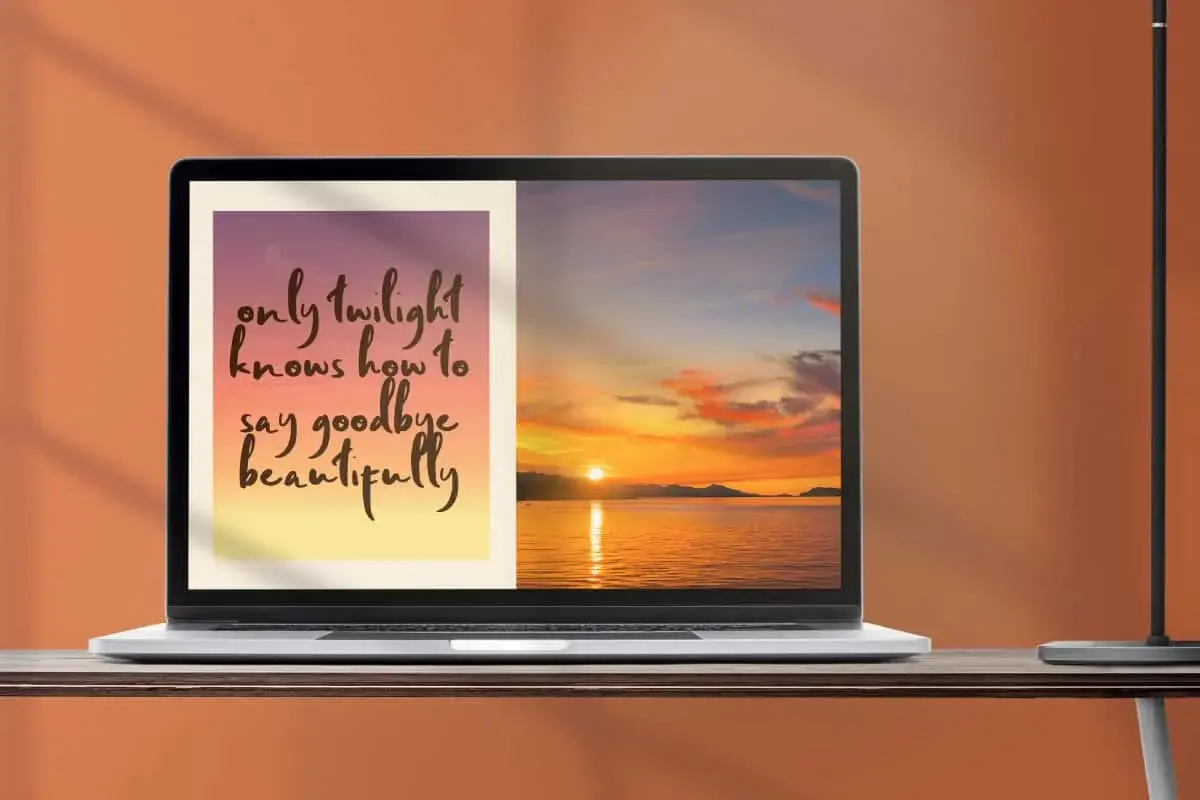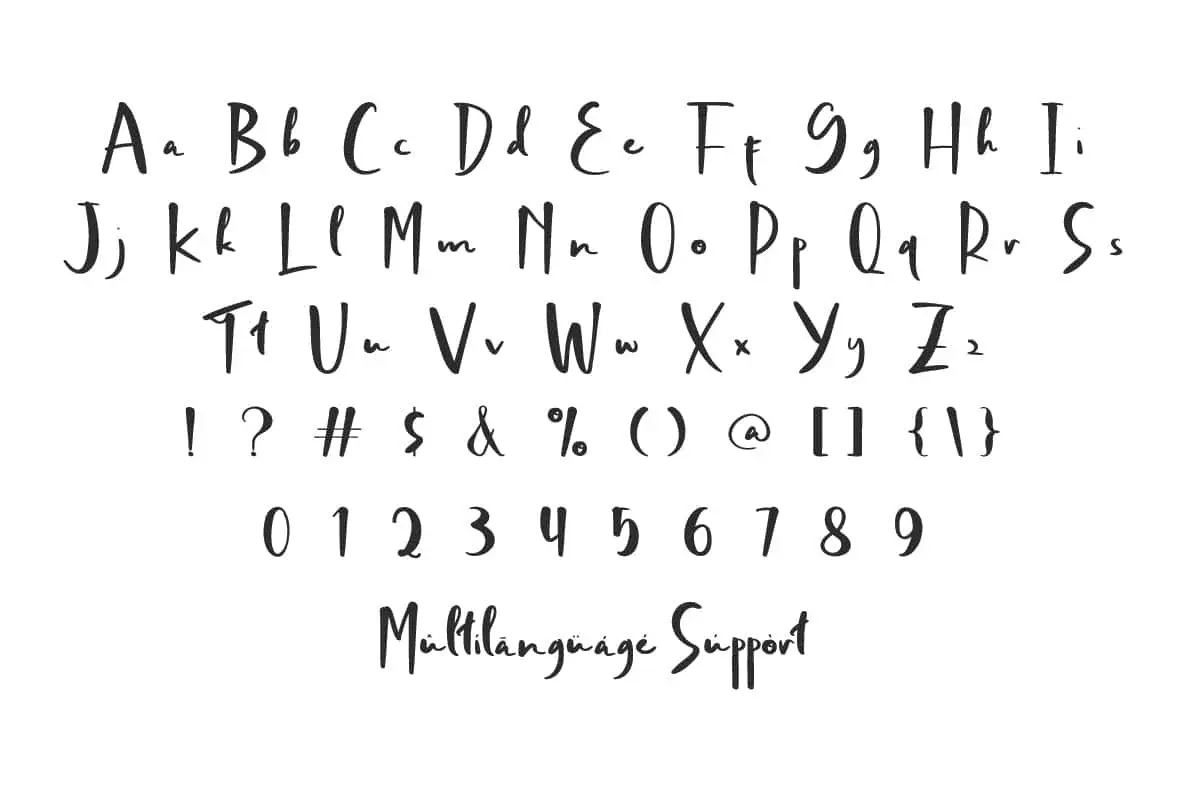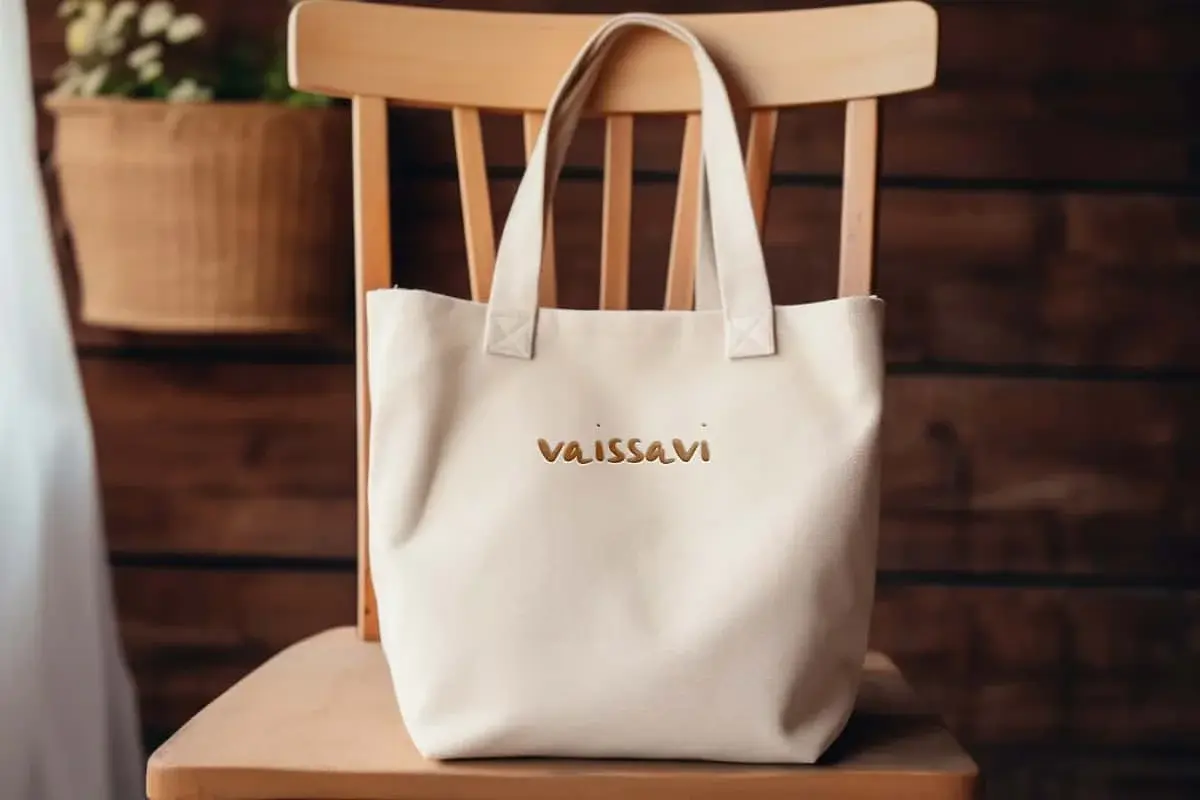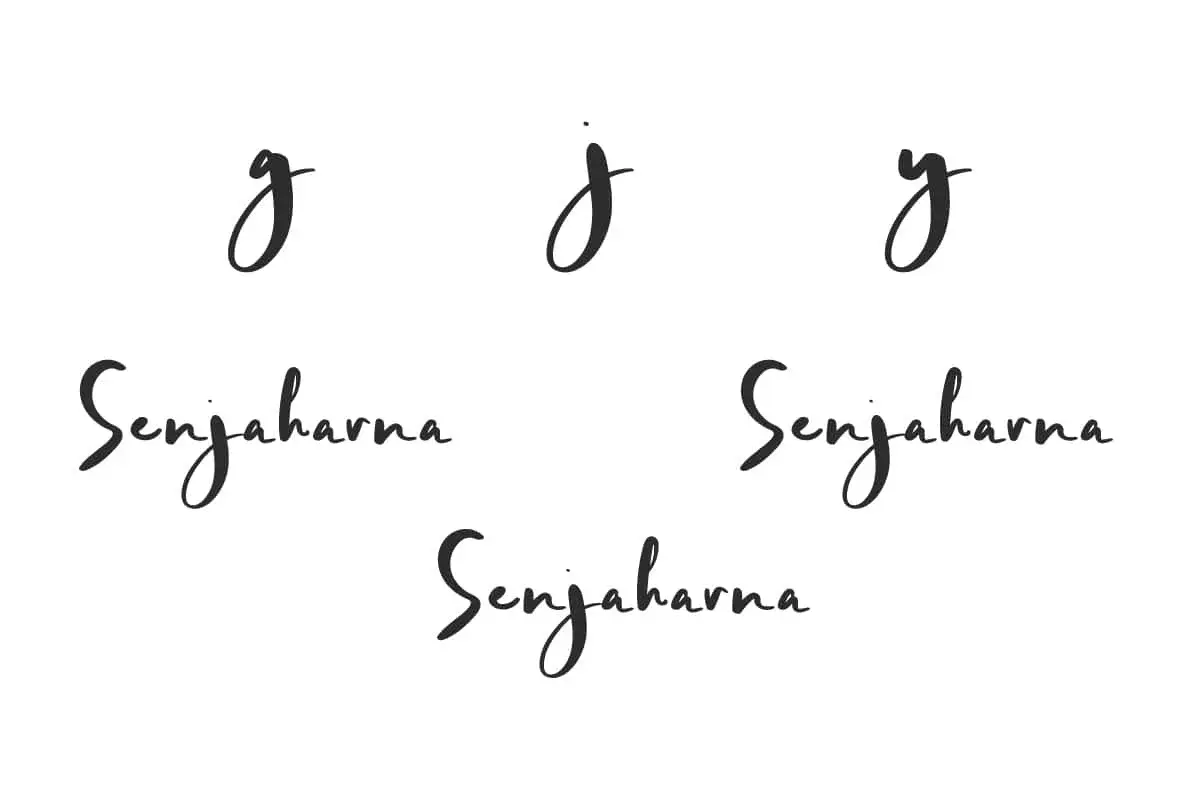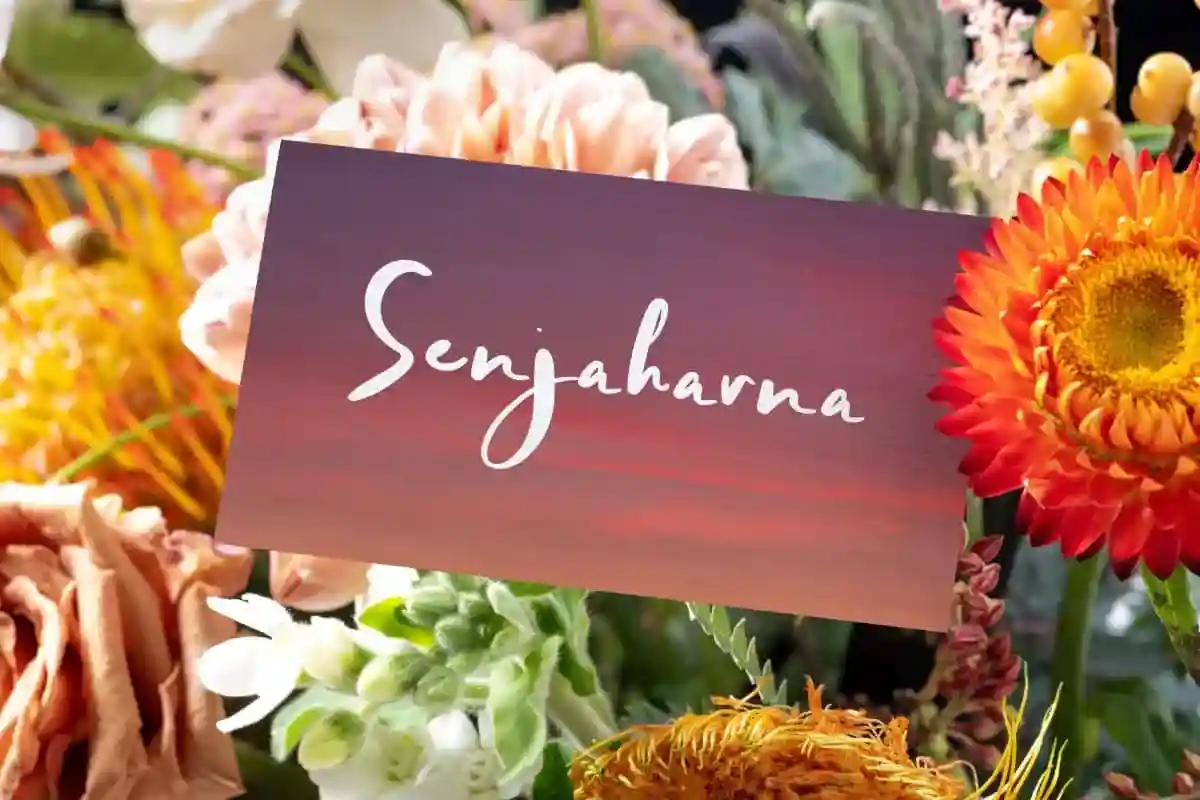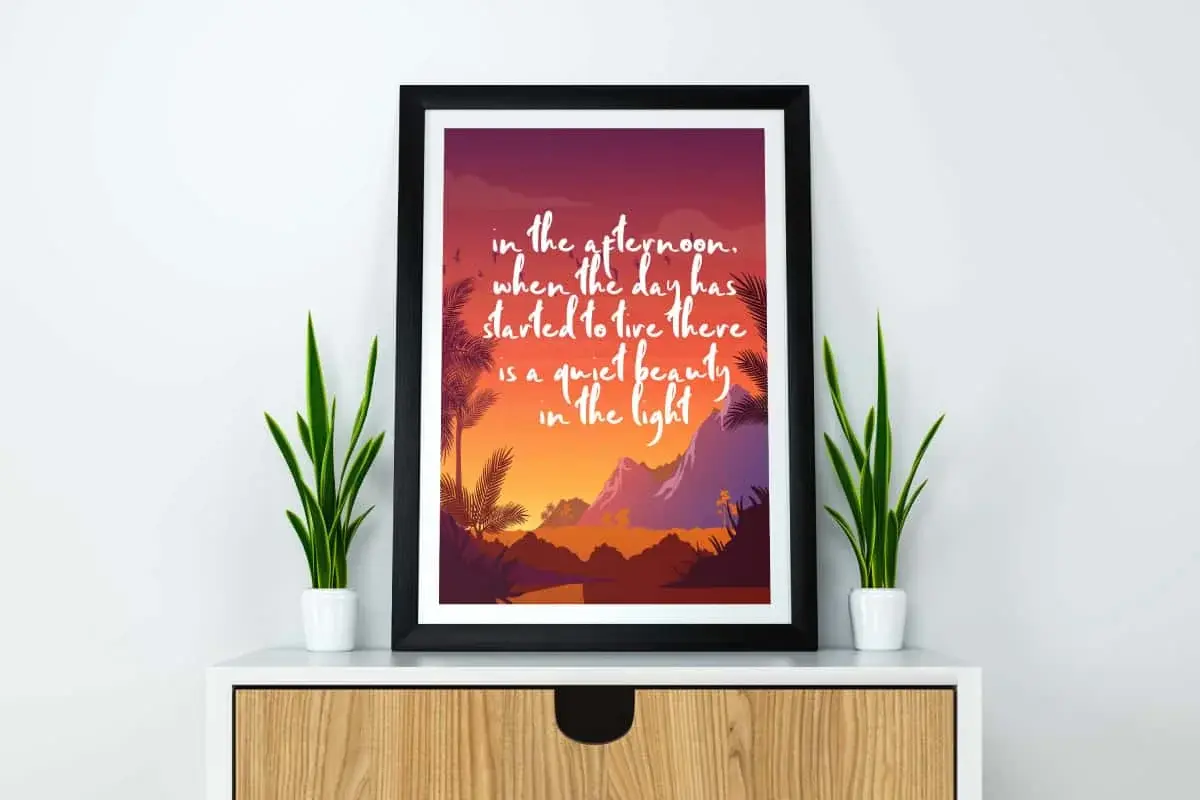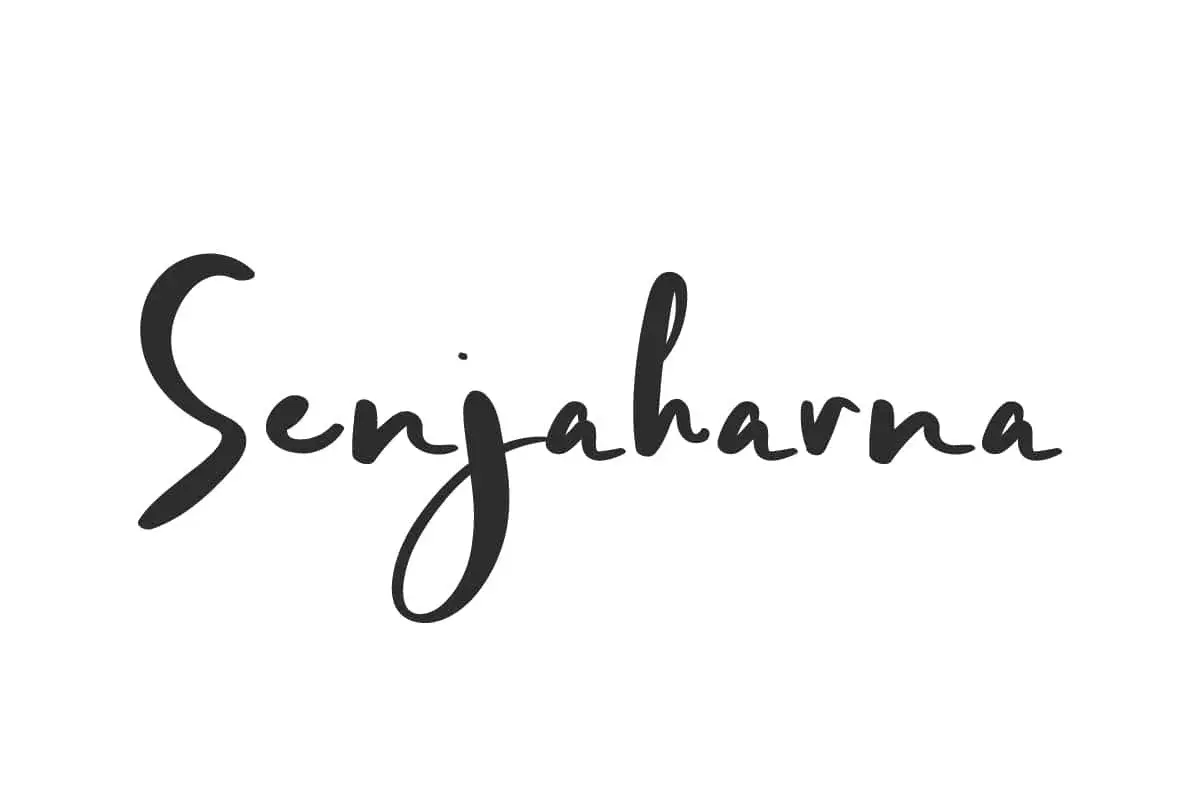
Senjaharna Font is a romantic stylish handwritten font made with pen brush in beautiful way. Amazing for many projects including love, family and other themes.
Senjaharna Font is beautiful handwriting that harmoniously forms a neat and elegant typographic appearance. It will add artistic value of handmade to any creative project such as book titles, branding, cover, greeting card, logo design, packaging design, poster, quotes, screen printing, stationery, sticker, title, website, and much more.
Senjaharna Font includes a complete set of Basic Uppercase and Lowercase Characters, Numbers, Punctuation Marks and Symbols. Alternative options are available that allow for variations in your final look in any industry, such as advertisement, artist, boutique, cafe, cosmetic, event organizer, fashion, florist, graphic design, handicraft, photography, skincare, spa salon, writer, etc.